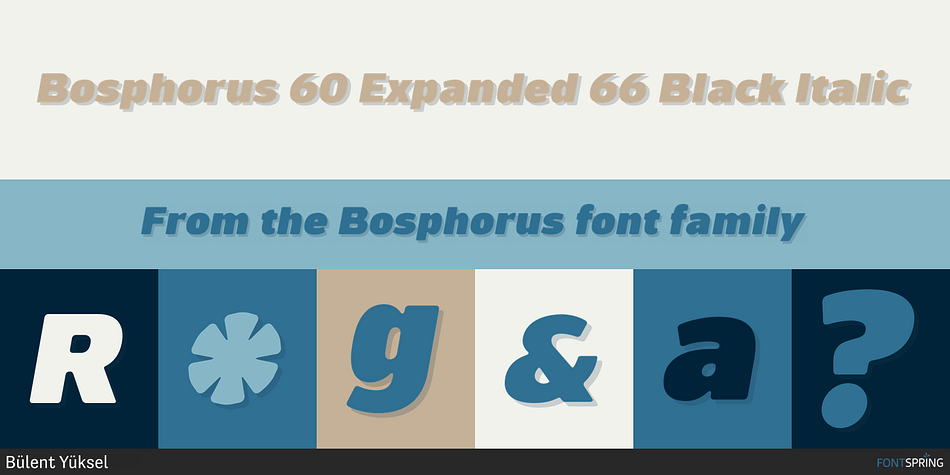
Bosphorus 60 Expanded 66 Black Italic
Designed by Bülent Yüksel, Bosphorus is a sans serif font family. This typeface has sixty styles and was published by Bülent Yüksel.
BOSPHORUS
Ideally suited for advertising and packaging, editorial and publishing, logo, branding and creative industries, poster and billboards, small text, wayfinding and signage as well as web and screen design.
Optimized for web, tablet and smartphone applications. Also “Bosphorus” is a perfect screen display font.
“Bosphorus” provides advanced typographical support for Latin-based languages. An extended character set, supporting Central, Western and Eastern European languages, rounds up the family.
The designation “Bosphorus 50 Normal 53 Regular” forms the central point. The first figure of the number describes the stroke thickness: 51 Thin to 56 Black. 5 Width / 6 Weights and italics also “Bosphorus” total 60 types. The family contains a set of 530 characters.
Case-Sensitive Forms, Classes and Features, Fractions, Superior, Inferior, Denominator, Numerator, Old Style Figures just one touch easy In all graphic programs.
Style 66 Black Italic